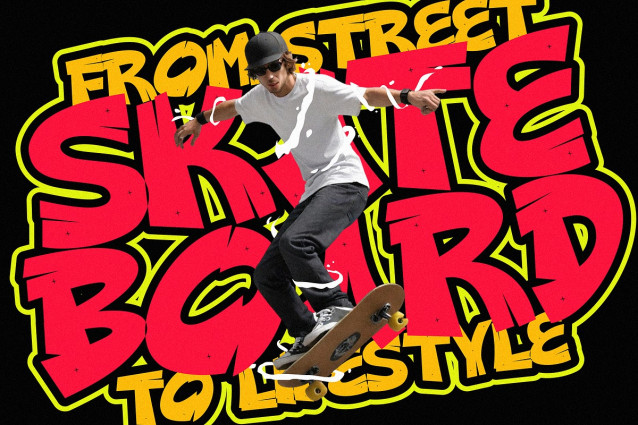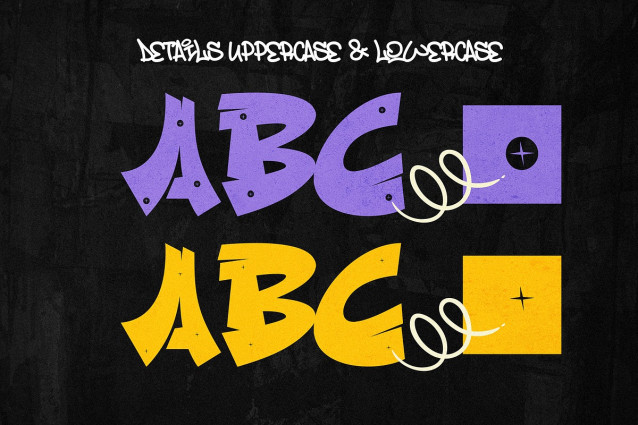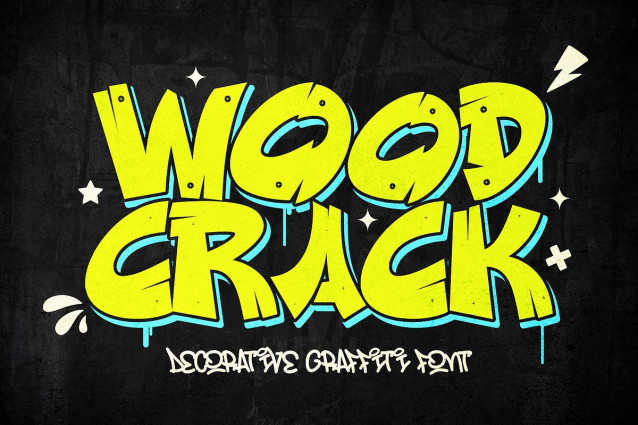
Wood Crack Font
Wood Crack Font is a distinctive decorative graffiti font that merges the rugged feel of cracked wood with the bold energy of urban street art. This font is perfect for designs that need to stand out with a gritty, textured look.
🌳 Nature Meets Urban: Each letter’s unique crackled wood effect brings an organic, natural element to your graffiti-inspired projects. Whether you’re designing for posters, album covers, or branding, Wood Crack delivers an eye-catching and unconventional aesthetic.
🎨 Bold and Expressive: Wood Crack’s strong, chunky letters command attention, making it ideal for designs that need to convey strength and creativity. Its decorative style adds an extra layer of visual interest, making your work pop with a raw, edgy vibe.
🔥 Versatile Application: Wood Crack adapts seamlessly across various mediums from poster designs to digital graphics. Its combination of organic and urban elements makes it a versatile choice for any creative project.
Wood Crack is more than just a font—it’s a statement piece that combines the raw power of nature with the boldness of graffiti, giving your designs a unique and memorable edge.